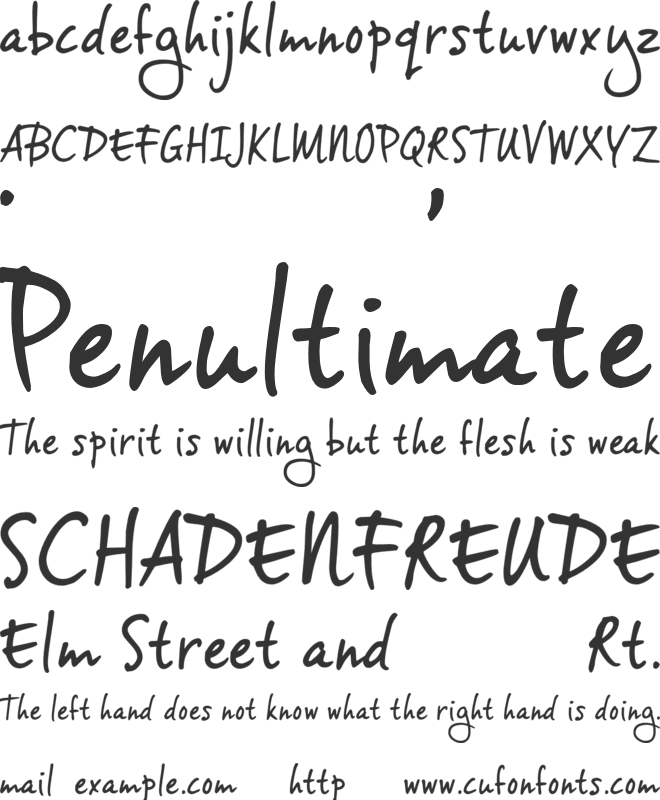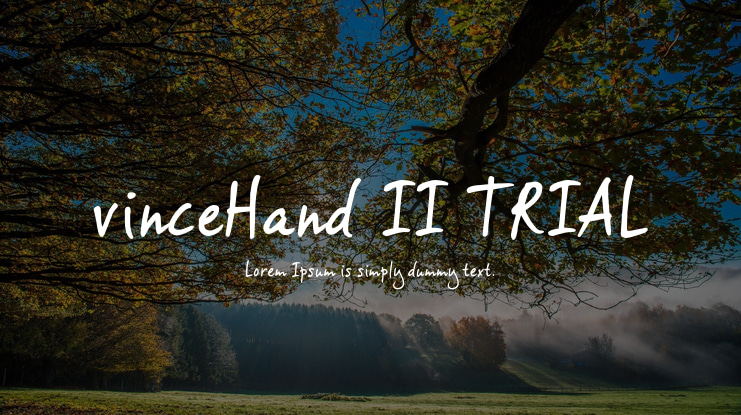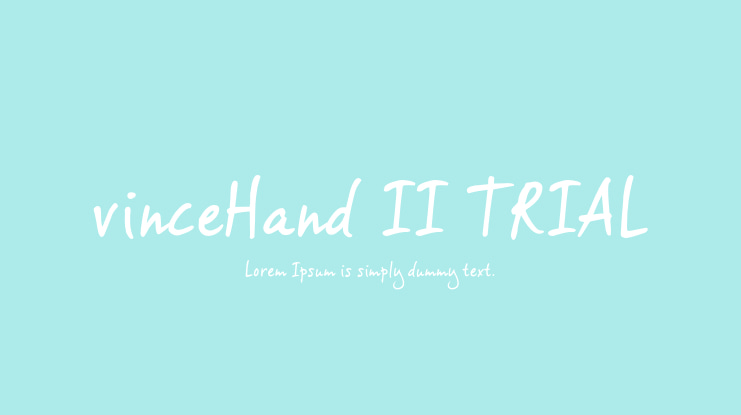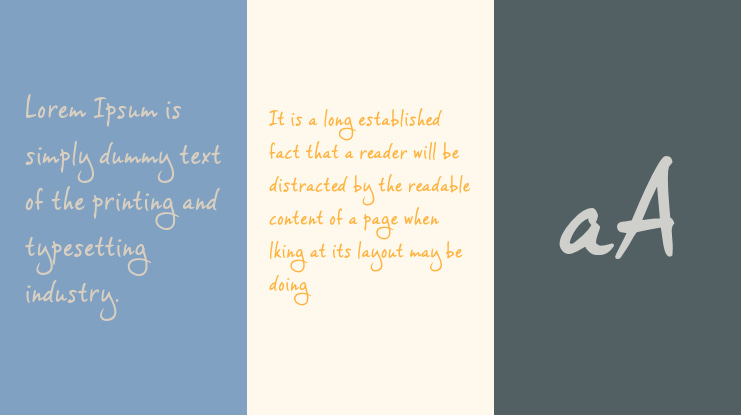
vinceHand II TRIAL Font
My good friend and painter Vincent's handwriting. This is an incomplete trial version. The complete and embeddable version of the font is available on my website: www.joebobgraphics.com